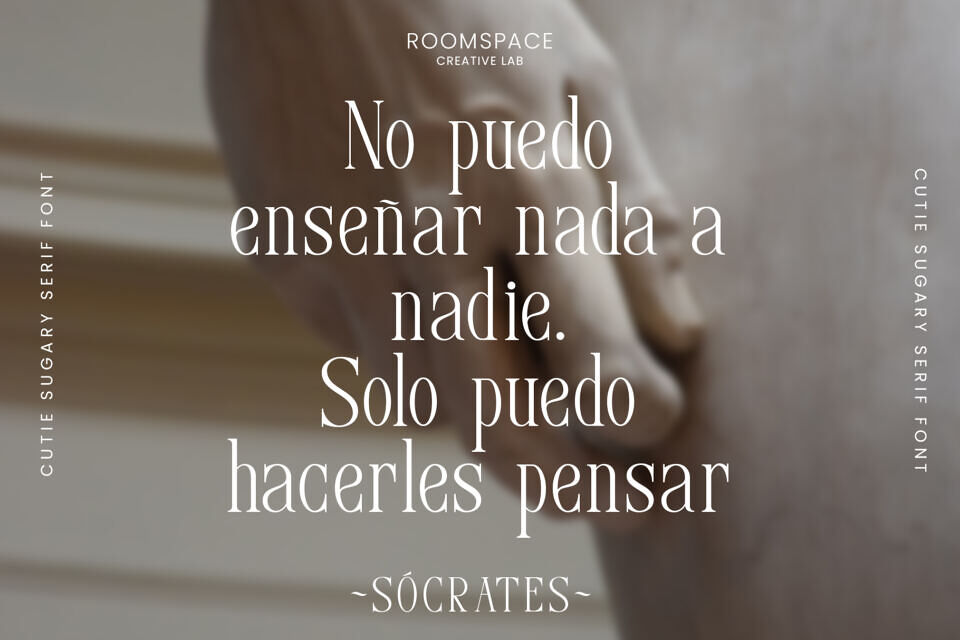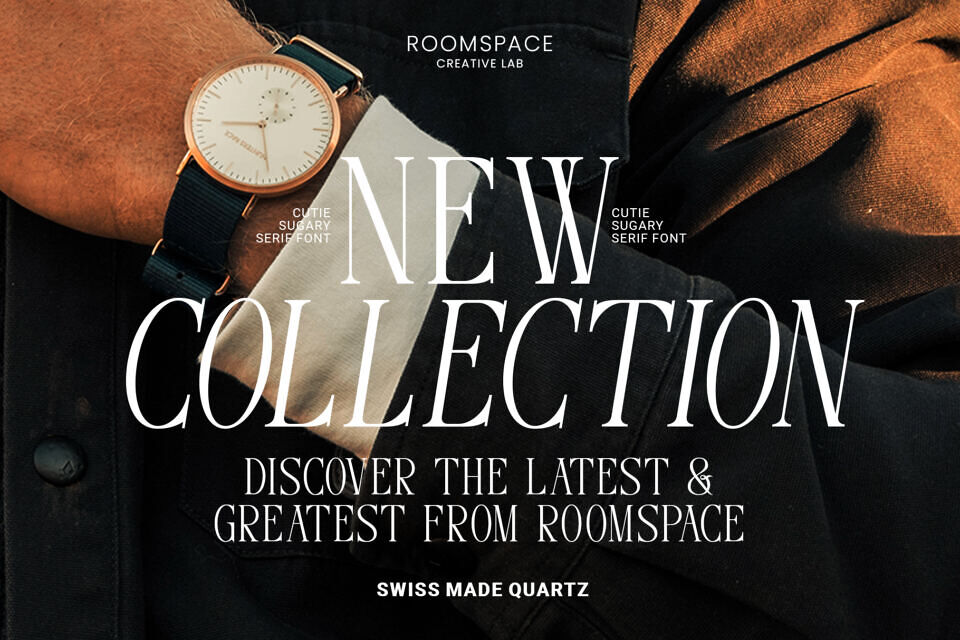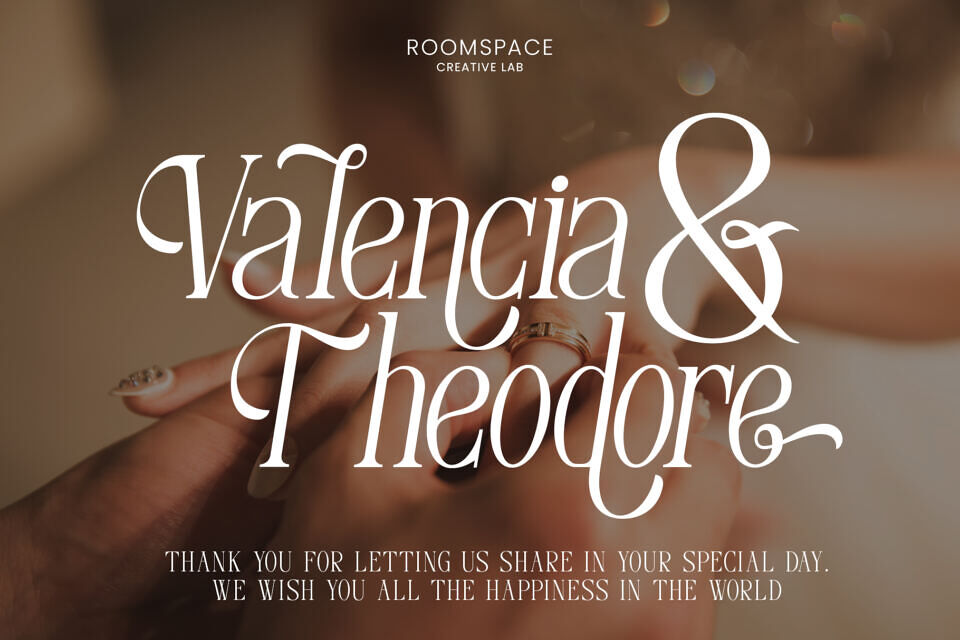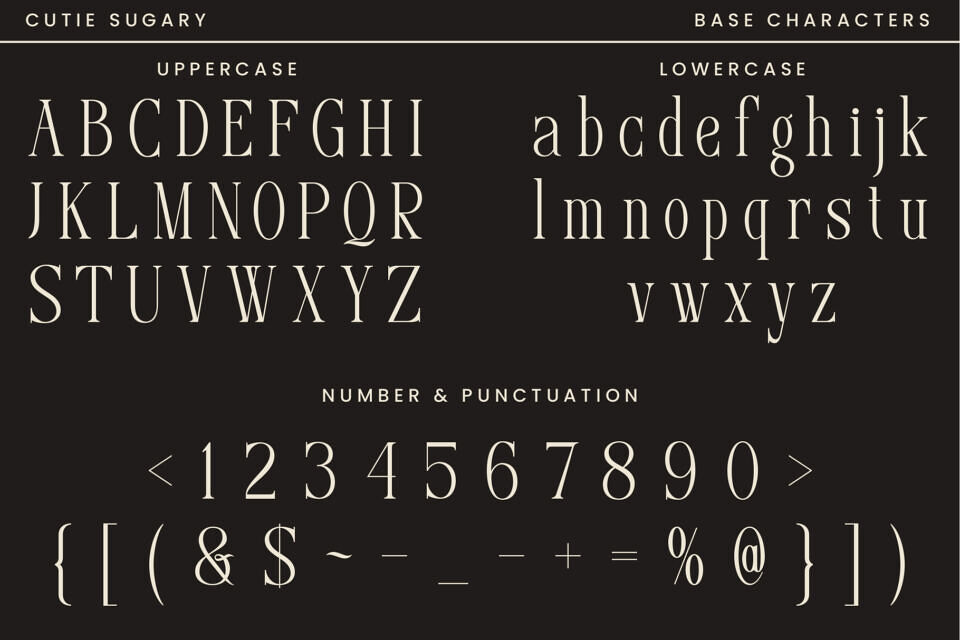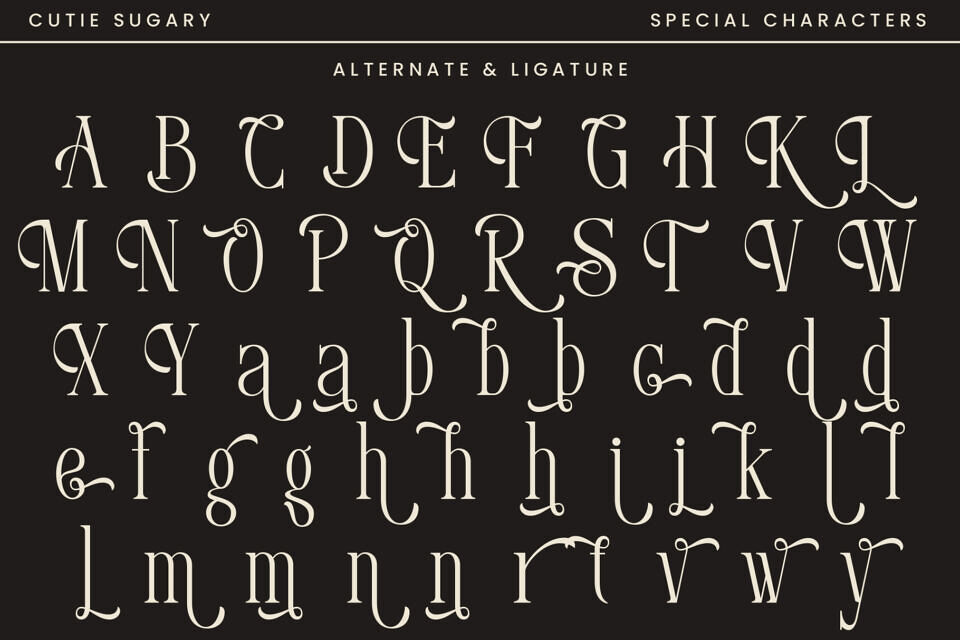
Cutie Sugary Font
Cutie Sugary is a delightful font that exudes charm and sophistication. With its graceful serifs and refined letterforms, it adds an air of elegance to any design. The carefully crafted swashes on select letters provide a whimsical and playful element, making it perfect for creating eye-catching headlines, invitations, and branding materials.
Designed with love and attention to detail, Cutie Sugary captures the essence of timeless beauty. Its classic style, combined with the hand-drawn sketch medium, adds a touch of warmth and authenticity to your projects. Whether you’re designing wedding stationery, crafting unique greeting cards, or creating stunning logos, this font will add a delightful and personalized touch.
It effortlessly blends into a variety of design styles, from modern to vintage, ensuring its adaptability for different projects. Its legibility and balanced letterforms make it equally suitable for both small and large-scale designs, guaranteeing a seamless reading experience for your audience.